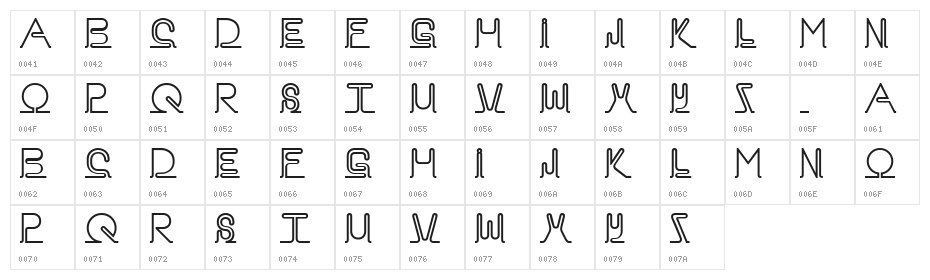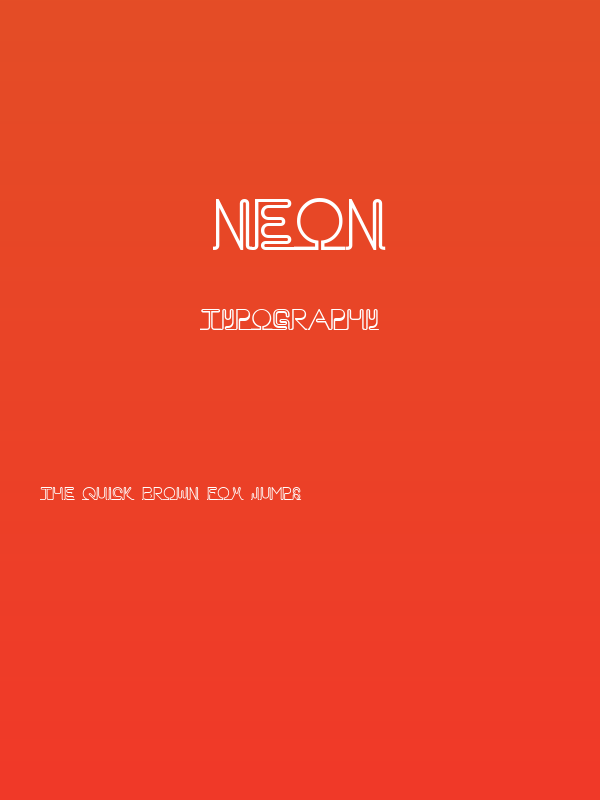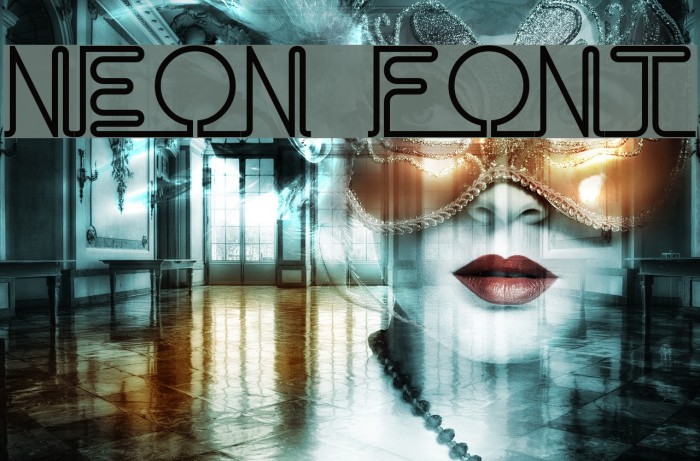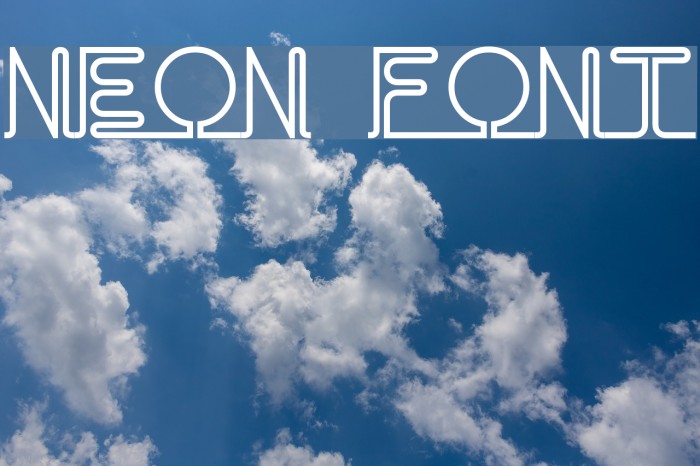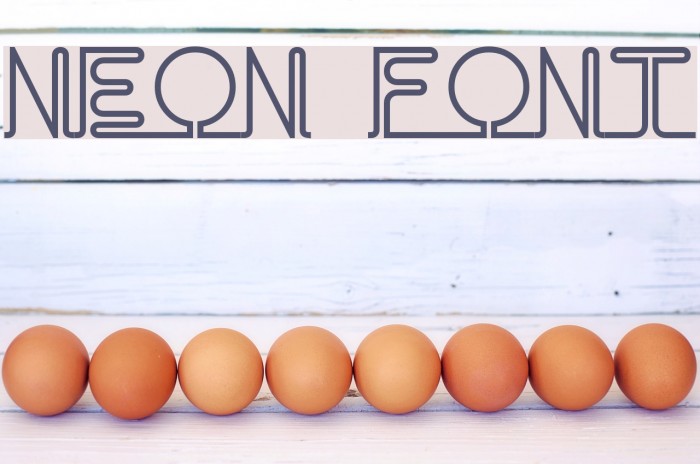
Neon Font
Neon Description
This font features a unique, modern design with a neon-inspired aesthetic. The characters are constructed with continuous, unbroken lines that mimic the appearance of neon tubing. The uppercase letters are bold and geometric, with a distinct futuristic feel. The font lacks lowercase letters and numbers, focusing instead on a stylized uppercase alphabet. The special characters are represented by rectangular shapes, adding to the font's abstract and decorative nature. This font is ideal for projects that require a standout, eye-catching typeface with a modern and edgy vibe.
| Proposed Projects | Ideal for branding, signage, posters, and any design requiring a futuristic or retro-futuristic look. |